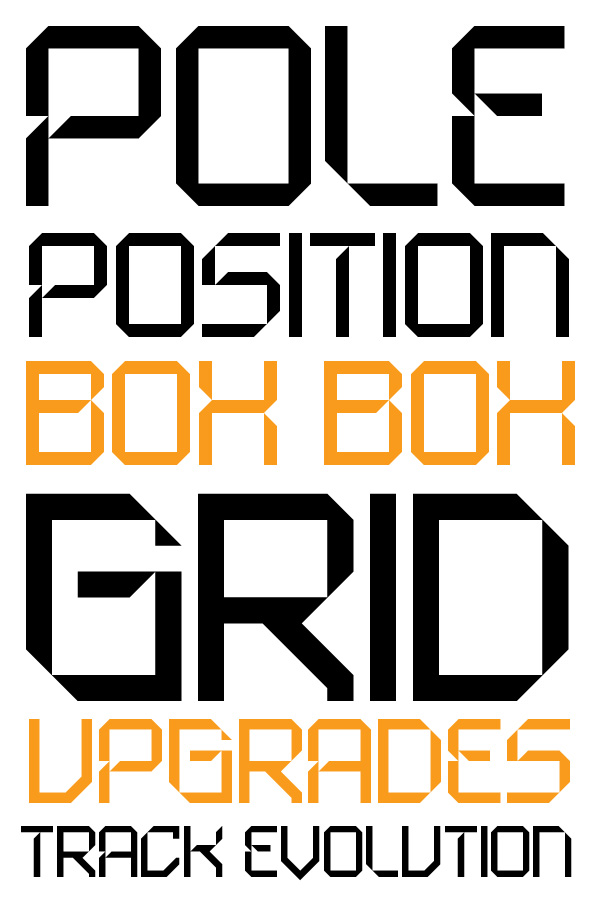
SbB Papaya
by Sketchbook B
A quick modular font based on McLaren's 2025 F1 livery numerals. Still needs some refinement and an expansion of the character set.
The letter forms are quite interesting. :)
Watching the Bahrain qualifying replay and knocking out a couple more samples of my McLaren inspired typeface.